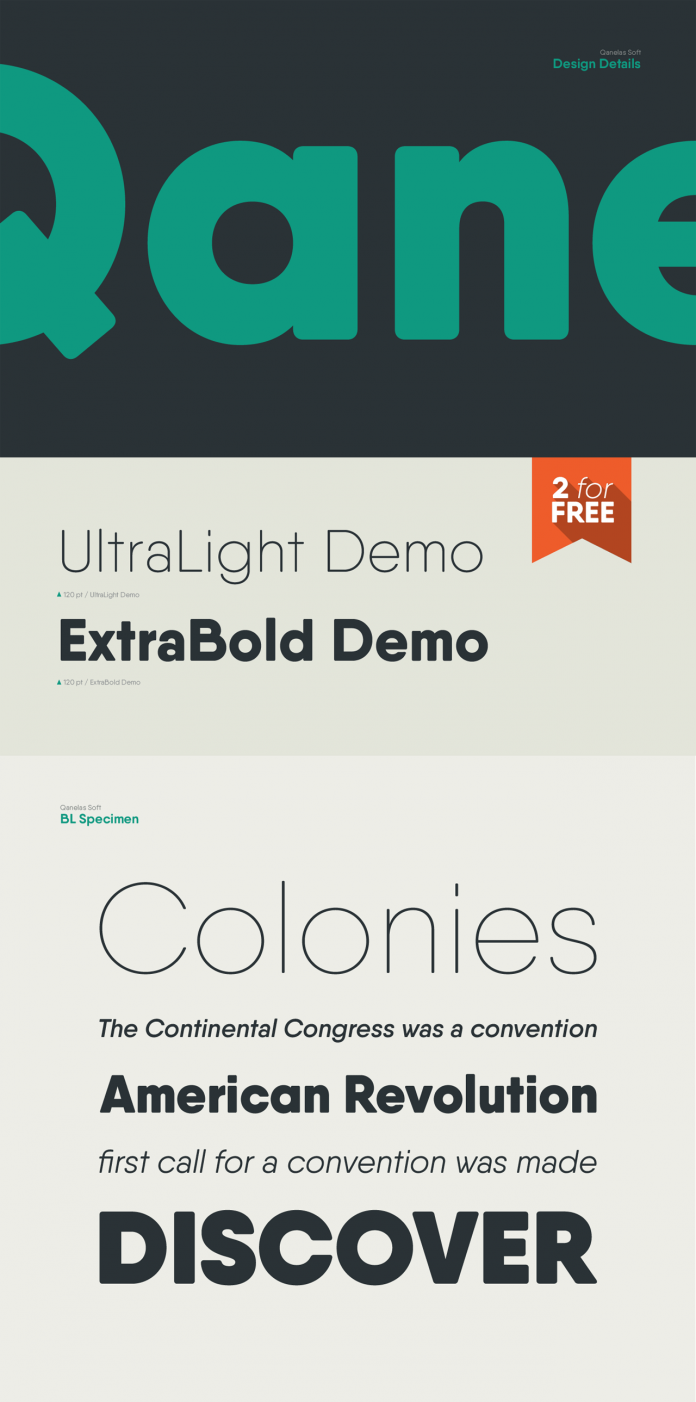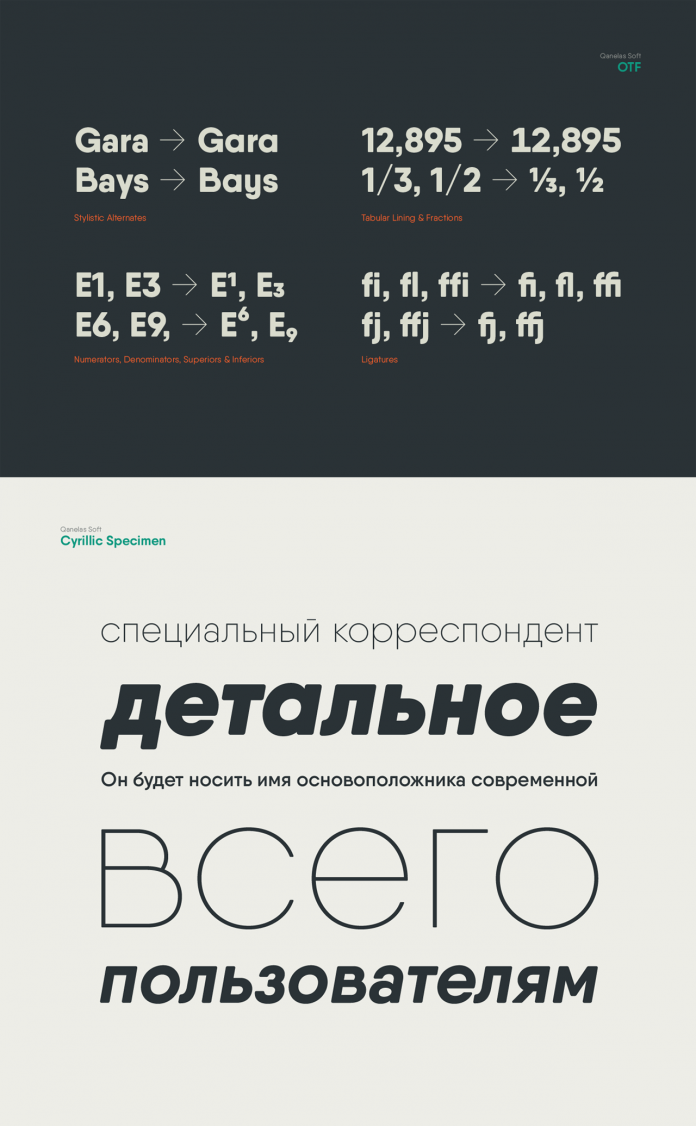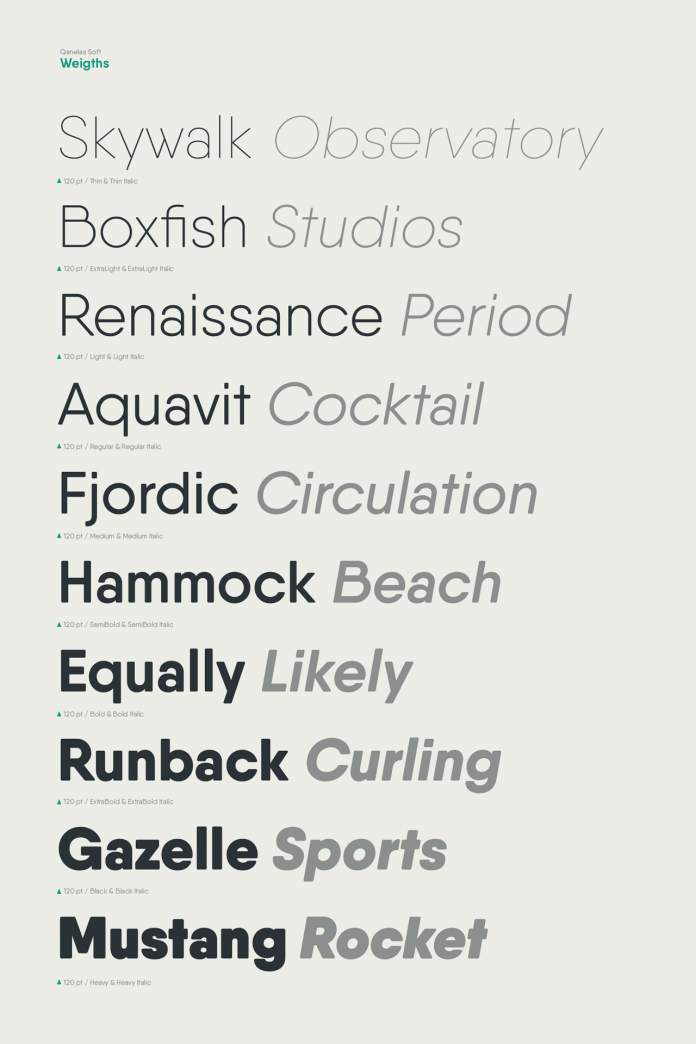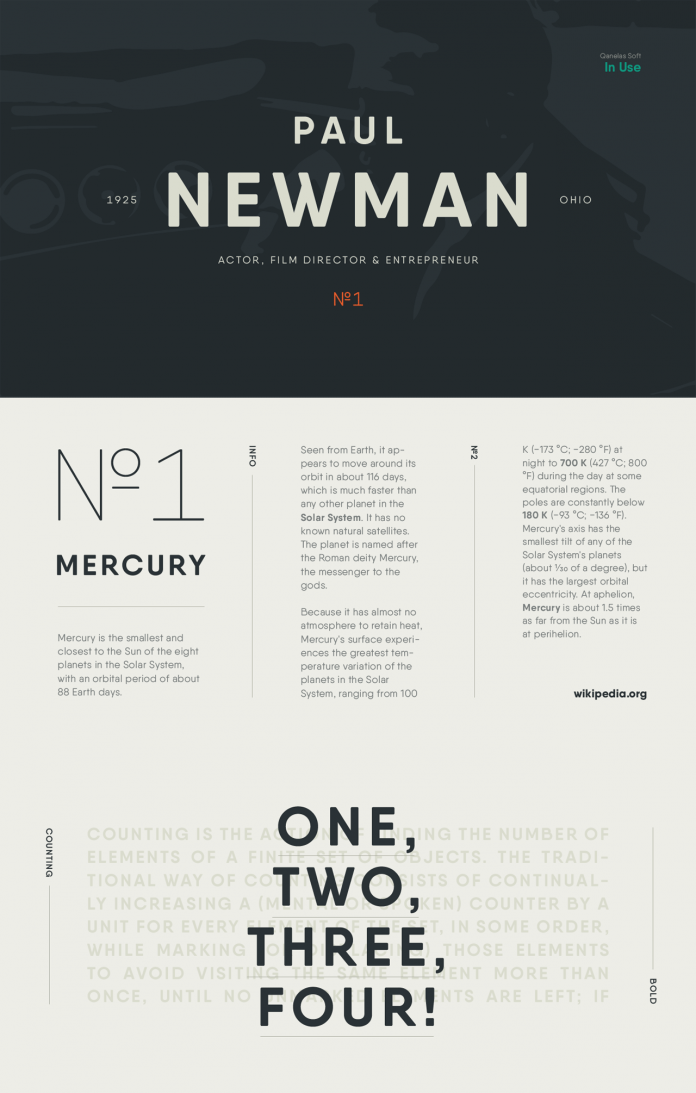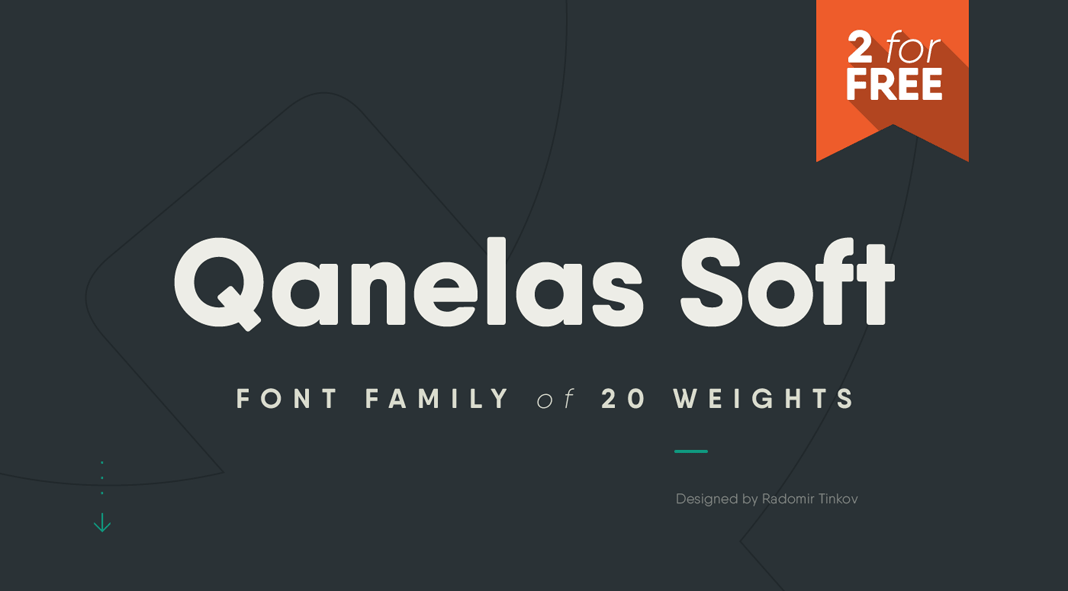
Qanelas Soft, a modern sans serif font family with a geometric touch.
You may know Radomir Tinkov’s Gilroy typeface, which is currently the best selling font on MyFonts ahead of Neue Helvetica. Today, we want to introduce you to another masterfully designed typeface by Radomir Tinkov. Qanelas Soft is a contemporary sans serif font family with a geometric touch. It’s a little friendlier version of the original Qanelas typeface. Read more below or click on one of the following links to purchase the family.
Qanelas Soft font family by Radomir Tinkov.
The entire family consists of 20 weights including 10 uprights plus matching Italics. Radomir Tinkov has designed the typeface with plenty of powerful OpenType features including alternate characters, fractions, extended language support, arrows, ligatures, and more. Whether web, signage, corporate design or editorial design, it is a great choice for graphic design and any display use.
Qanelas Soft font family by Radomir Tinkov.
OpenType features and multiple language support.
Qanelas Soft font family by Radomir Tinkov.
The weights ranging from Thin to Heavy plus matching Italics.
Qanelas Soft font family by Radomir Tinkov.
The typeface in action.